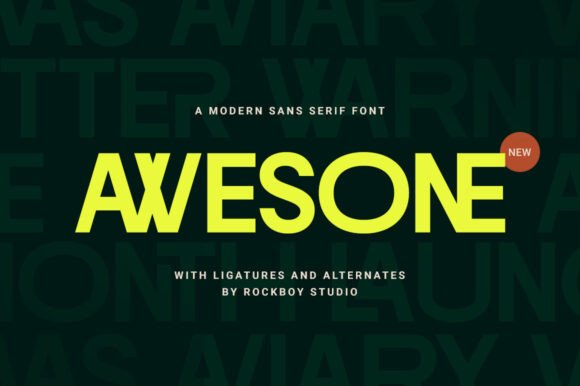
Awesome Font: Elevate Your Design with a Sleek and Modern Sans Serif Typeface
In the world of typography, fonts play a crucial role in conveying messages, expressing emotions, and creating a lasting impression. When it comes to making a bold statement, a well-designed font can make all the difference. This is where Awesome Font comes in – a sleek and modern sans serif typeface that merges bold style with clean lines for a contemporary look.
What is Awesome Font?
Awesome Font is a carefully crafted typeface designed for maximum versatility. Its clean and minimalist aesthetic makes it perfect for a wide range of applications, from eye-catching headlines and branding projects to website headers and more. With its sleek lines and bold style, Awesome Font is sure to elevate your design and make it stand out from the crowd.
Key Features of Awesome Font
- Modern Sans Serif Design: Awesome Font boasts a modern sans serif design that exudes a sense of sophistication and elegance.
- Bold Style: With its bold lines and striking appearance, Awesome Font is perfect for making a statement and grabbing attention.
- Clean Lines: The font’s clean lines ensure that it remains legible and easy to read, even at smaller font sizes.
- Maximum Versatility: Awesome Font is designed to be versatile, making it suitable for a wide range of applications, from print to digital media.
10 Inspiring Ways to Use Awesome Font
- Headlines and Titles: Use Awesome Font to create eye-catching headlines and titles that grab attention and make a lasting impression.
- Branding Projects: Awesome Font is perfect for branding projects, such as logos, business cards, and letterheads, where a bold and modern look is desired.
- Website Headers: Elevate your website’s design with Awesome Font, perfect for headers, navigation menus, and call-to-action buttons.
- Social Media Graphics: Create stunning social media graphics, such as Facebook posts, Twitter headers, and Instagram stories, using Awesome Font.
- Advertising and Marketing: Use Awesome Font to create bold and attention-grabbing ads, flyers, and brochures that drive results.
- Packaging Design: Add a touch of modern elegance to your packaging design with Awesome Font, perfect for product labels and packaging materials.
- Infographics: Create visually appealing infographics using Awesome Font, perfect for presenting data and statistics in a clear and concise manner.
- Presentations: Use Awesome Font to create engaging and professional-looking presentations that leave a lasting impression.
- Signage and Displays: Awesome Font is perfect for signage and display applications, such as billboards, posters, and exhibition displays.
- Merchandise: Create stylish merchandise, such as t-shirts, mugs, and tote bags, using Awesome Font.
Typography Tips for Using Awesome Font
To get the most out of Awesome Font, here are some typography tips to keep in mind:
- Experiment with Font Sizes: Play around with different font sizes to create visual hierarchy and emphasize important information.
- Pair with Other Fonts: Pair Awesome Font with other fonts to create a unique and harmonious typography combination.
- Use Color Effectively: Use color to add depth and contrast to your design, making Awesome Font stand out even more.
- Pay Attention to Line Spacing: Ensure that line spacing is optimal to maintain readability and flow.
In conclusion, Awesome Font is a sleek and modern sans serif typeface that is perfect for designers looking to elevate their design and make a bold statement. With its clean lines, bold style, and maximum versatility, Awesome Font is sure to become a go-to font for a wide range of applications. Whether you’re working on a branding project, website design, or marketing materials, Awesome Font is an excellent choice.